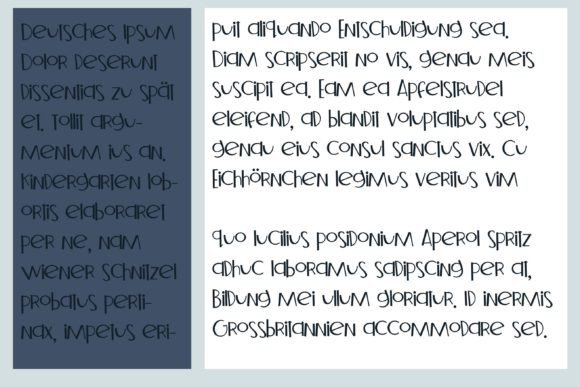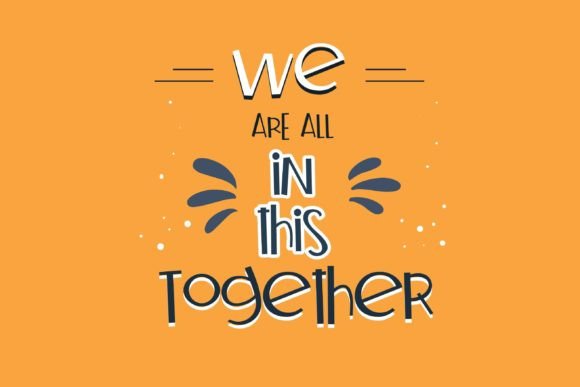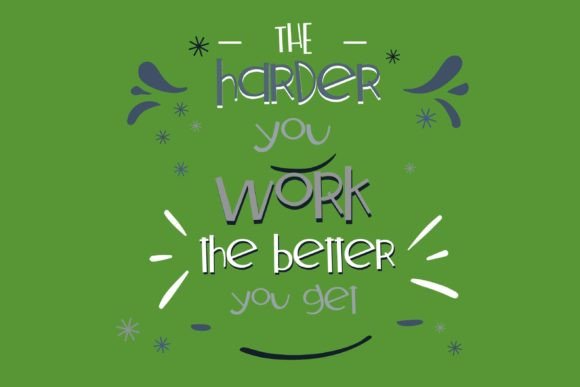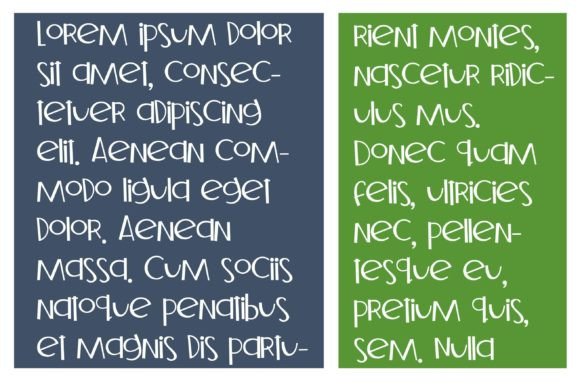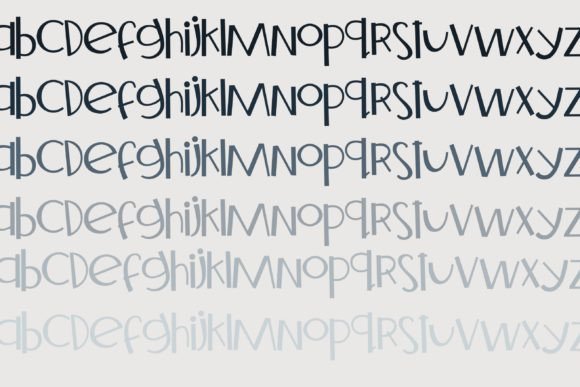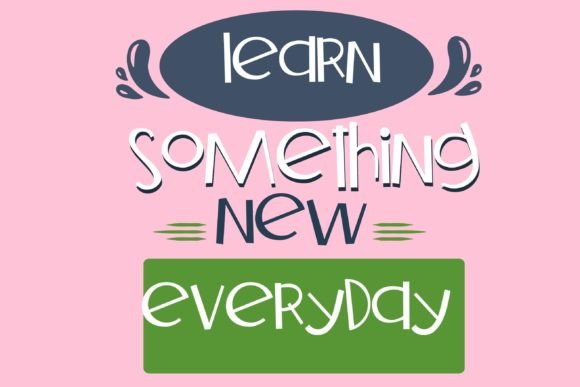
A Dorky Print Font: Adding Whimsy to Your Designs
Have you ever stared at a blank page, pencil in hand, trying to come up with the perfect phrase to kick-start a project? For many designers, this is a familiar creative moment – the spark that ignites a new idea. For those seeking a playful touch, A Dorky Print Font is here to help. This charming, hand-crafted font is designed to evoke a sense of youthfulness and fun, making it perfect for invitations, greeting cards, and other casual projects.
A Dorky Print Font is more than just a font – it’s a way to add a personal touch to your designs. With its bouncy baseline and available lite and bold versions, this font is versatile and easy to use. Whether you’re looking to create a sense of nostalgia or whimsy, A Dorky Print Font is a valuable addition to any designer’s toolkit.
A Dorky Print Font Key Features
- Size: The font family includes 6 different font weights, ranging from Light to Extra Bold, providing versatility for various design needs.
- Unique Characteristics: A Dorky Print Font features a quirky, handwritten style with subtle imperfections, adding a touch of personality to any design.
- Kerning and Ligatures: A Dorky Print Font includes carefully crafted kerning and ligatures to ensure smooth text flow and optimal readability.
A Dorky Print Font Review
First off, I want to say that I’m a fan of the quirky vibe A Dorky Print Font gives off. ✨ The font’s rough-around-the-edges feel is perfect for anyone looking to add a bit of humor and whimsy to their design. The wide range of glyphs and ligatures is also a major plus – it’s great to see a font that’s been thoughtfully crafted with the needs of designers in mind. ✨
However, there are a few limitations to consider. ⚠️ The font’s inconsistent spacing and kerning can make it tricky to use in certain situations. For example, I found that the font looked a bit wonky when used in long blocks of text. Additionally, some of the glyphs are a bit on the thick side, which can make them difficult to read at smaller sizes. ⚠️
Pros and Cons:
- ✨ Quirky, humorous vibe that’s perfect for adding some personality to your design
- ✨ Wide range of glyphs and ligatures for added flexibility
- ⚠️ Inconsistent spacing and kerning can make it tricky to use in certain situations
- ⚠️ Some glyphs can be difficult to read at smaller sizes due to their thickness
Overall, I think A Dorky Print Font is a solid choice for anyone looking to add a bit of humor and whimsy to their design. While it may not be perfect, the font’s unique personality and wide range of glyphs make it a great option for designers who want to stand out from the crowd. Just be sure to use it wisely and take advantage of its quirks!
A Dorky Print Font is ideal for creating playful, retro-style designs. Use it for:
- Invitations and party decor
- Printed materials like business cards and brochures
- DIY crafts and handmade projects